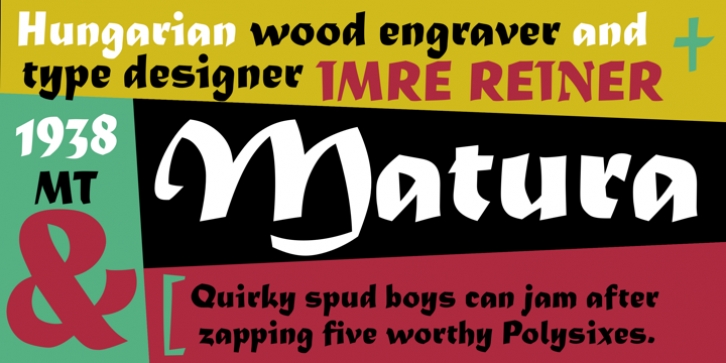
Matura was designed by the Hungarian wood engraver and type designer Imre Reiner in 1938 and released by the Monotype Corporation.
Matura is a bold upright script that looks as if it were written with a broad-edged pen; a set of vibrant near-flourished capitals, called scriptorial capitals, broadens the usual range of script faces.
Matura’s distinctive lines make it appropriate for advertising uses as well as text headings, and for informal work like cards, invitations, and announcements.